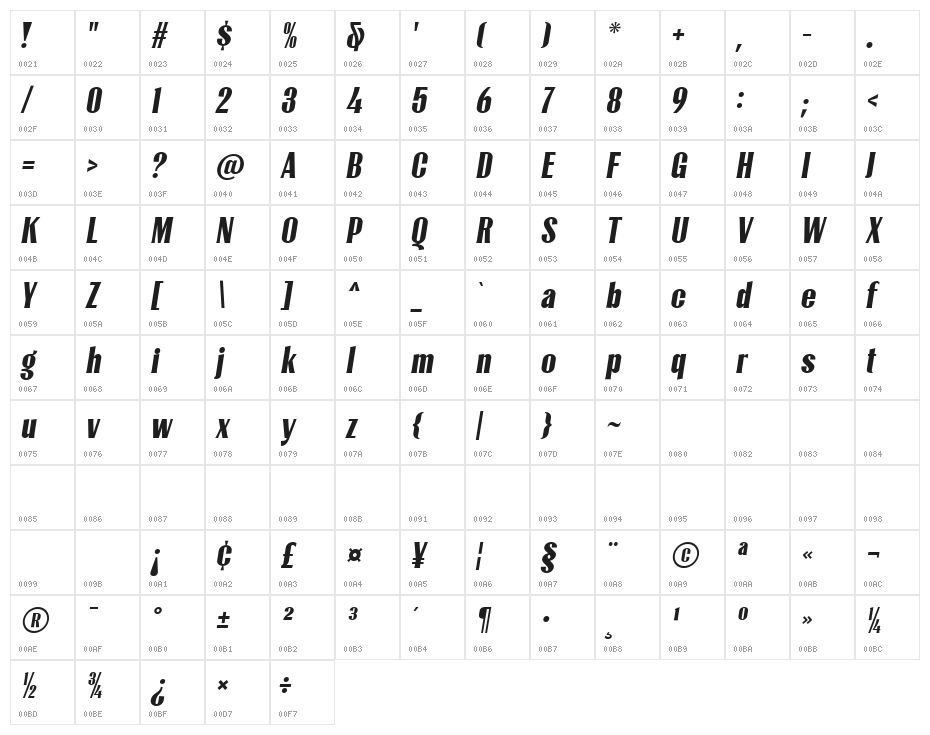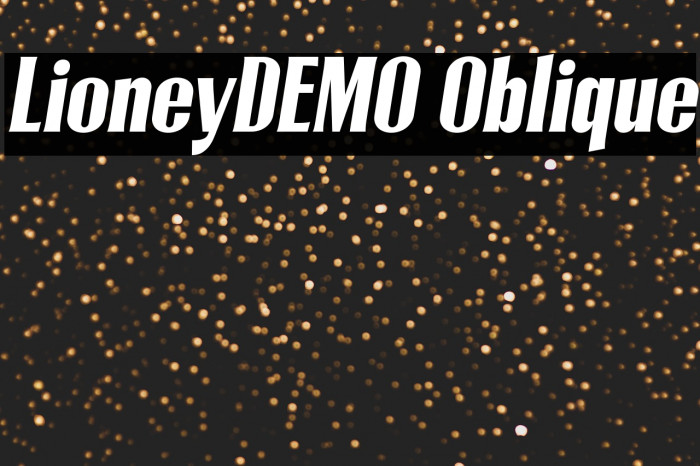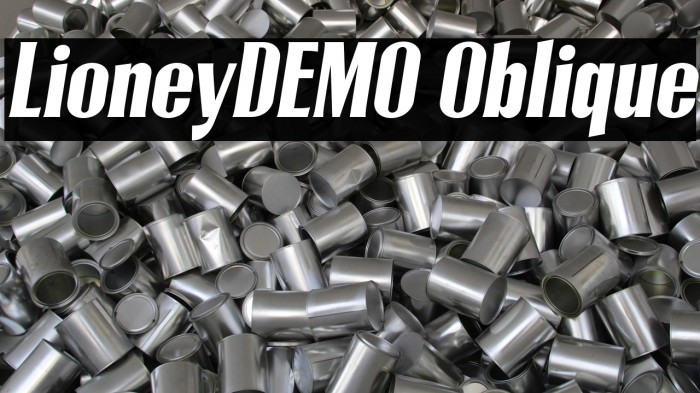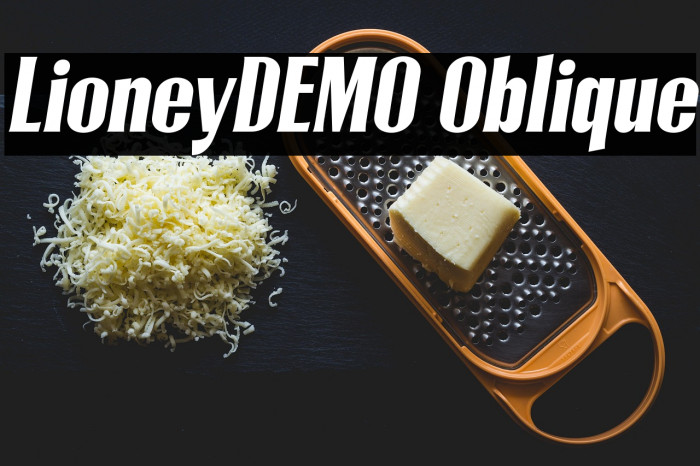
LioneyDEMO Oblique Font
LioneyDEMO Oblique Description
This font features a bold and dynamic oblique style, characterized by its strong, slanted letterforms that convey a sense of movement and urgency. The uppercase and lowercase letters maintain a consistent thickness, contributing to a cohesive and robust appearance. The numerals are equally bold, ensuring readability and impact. Special characters are designed with the same slant, integrating seamlessly with the rest of the typeface. The overall design is modern and assertive, making it suitable for attention-grabbing headlines and branding projects.
| Proposed Projects | Ideal for headlines, posters, branding, and advertising where a strong visual impact is needed. |